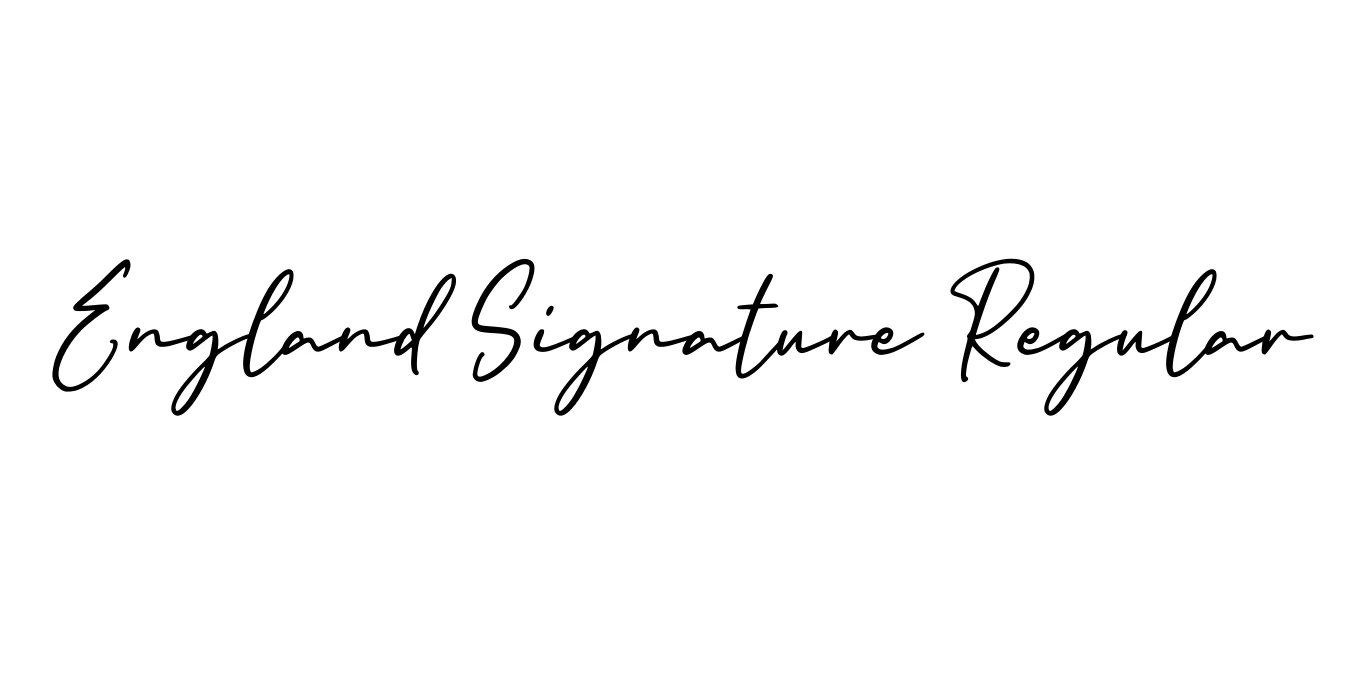
England Signature Regular
Designed by Ahmad Ramzi Fahruddin (Letterena Studios)
| Category | Script / Signature |
England Signature Regular is an exquisite and sophisticated script font that captures the fluid, natural movement of professional handwritten calligraphy. Designed with a focus on elegance and refined flair, this typeface features smooth, flowing connections and delicate strokes that provide an authentic, high-end feel. It is perfectly suited for projects that require a personalized touch combined with a modern, luxury aesthetic.
Developed by Letterena Studios, the font includes a comprehensive set of characters that enhance its realistic appearance through rhythmic spacing and stylistic alternates. It has become a premier choice for designers looking to create distinctive digital signatures, luxury branding materials, and elegant wedding invitations that stand out with a sense of professional grace and timeless style.
England Signature Regular Best Uses
Perfect for creating sophisticated logos and high-end visual identity systems.
Ideal for stylish Instagram overlays, Pinterest quotes, and digital storytelling.
Excellent for romantic invitations, RSVP cards, and personalized place settings.
A great choice for professional watermarks and digital signature overlays.